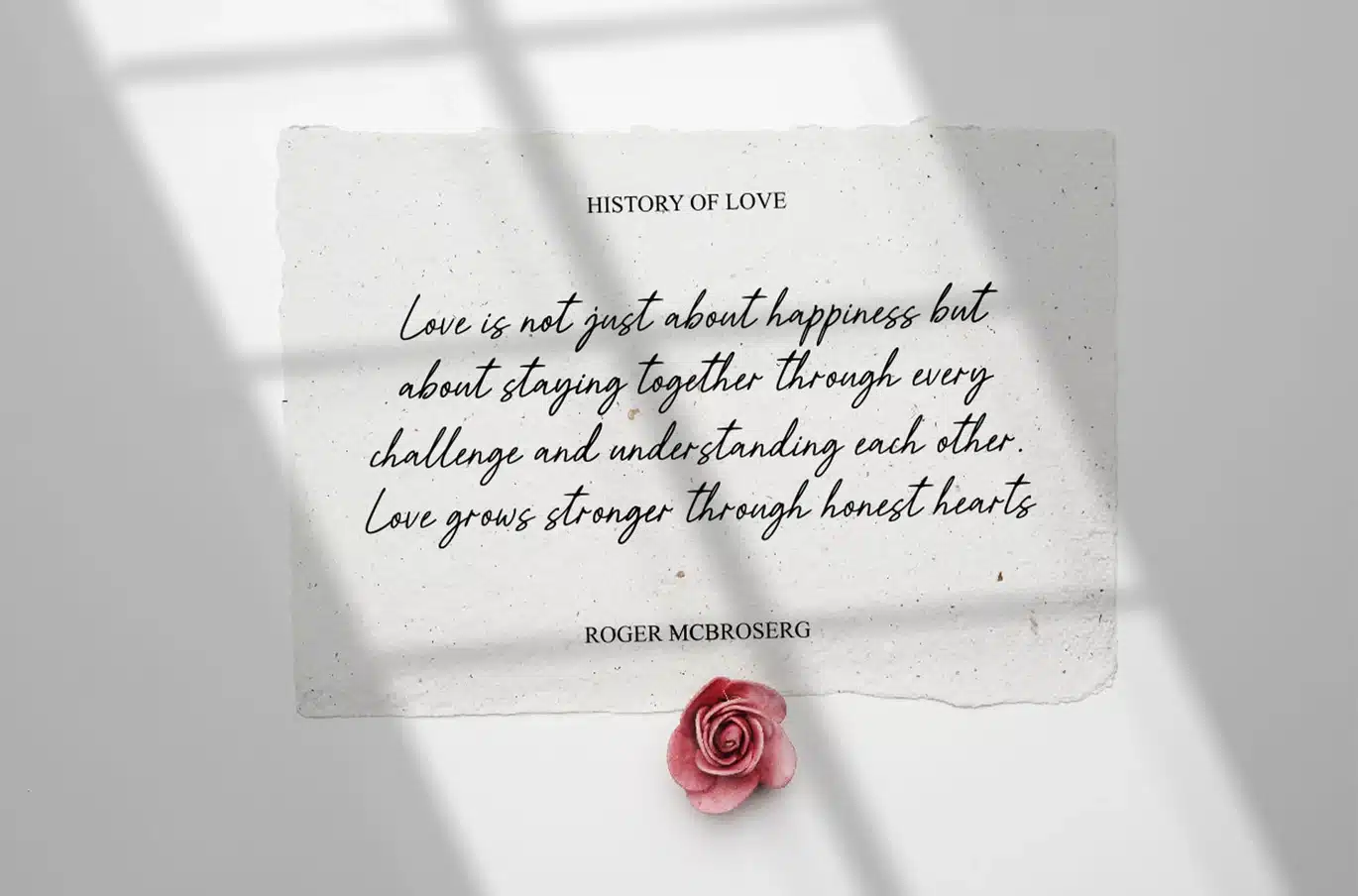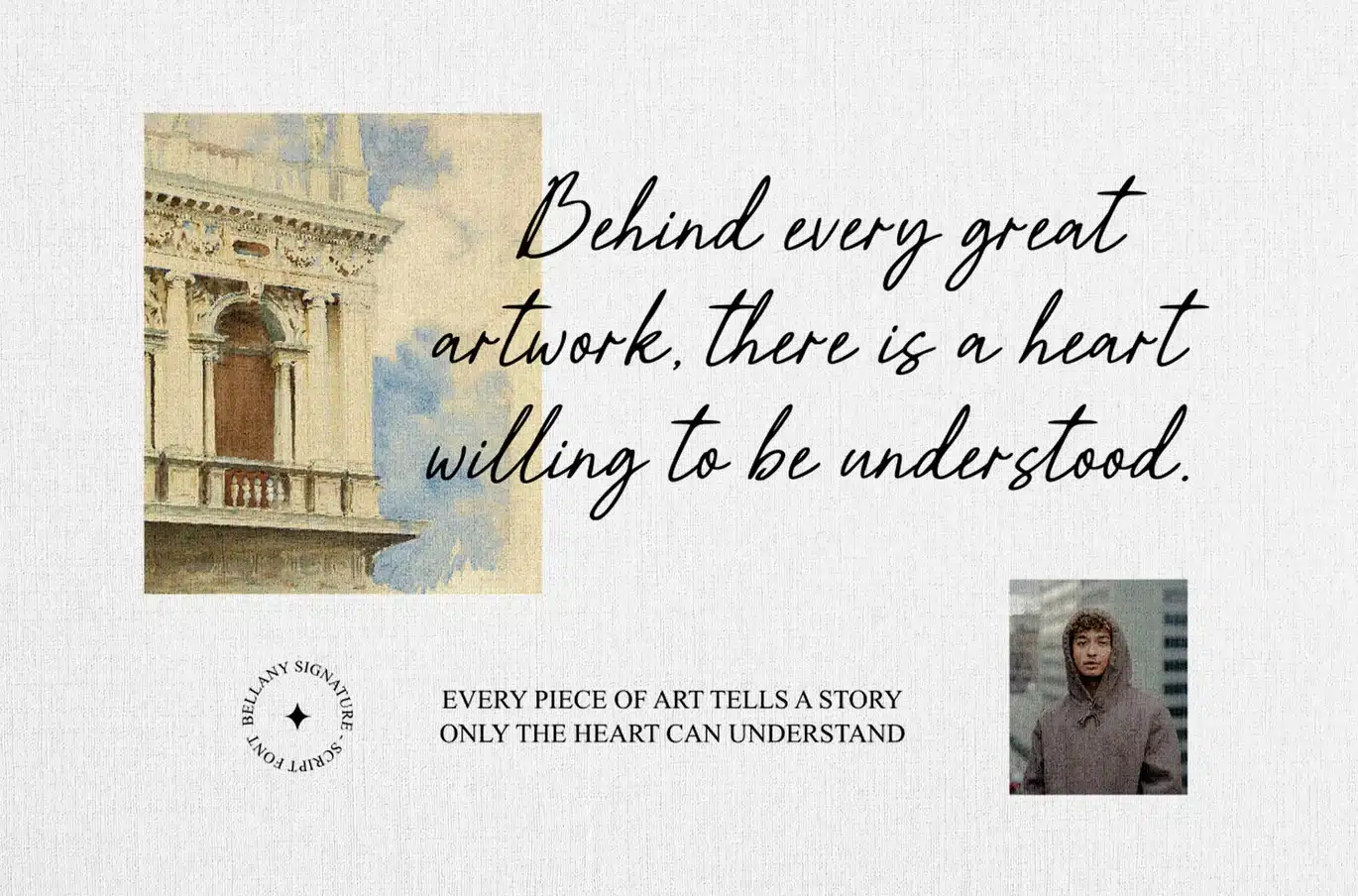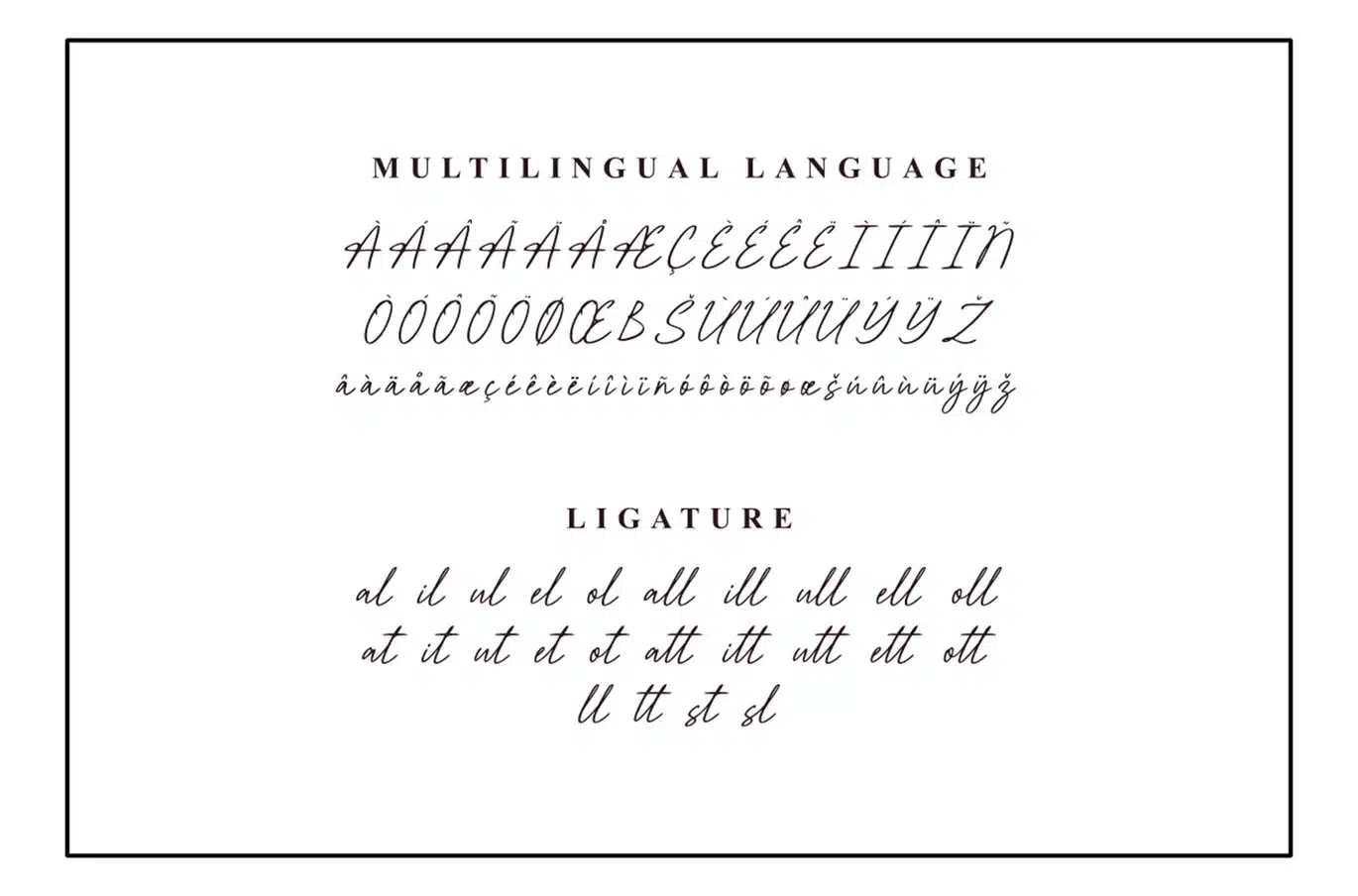
Bellany Signature Font
Bellany Signature is a sophisticated and fluid script font designed to bring a refined aesthetic to your creative projects. Its graceful, handwritten style is characterized by smooth connections and elegant letterforms, making it an ideal choice for professional branding and high-end design work.
Perfect for the current wedding season, Bellany Signature excels in creating stunning invitations, stationery, and event branding. Its versatility also extends to fashion logos, boutique branding, editorial headlines, and signature watermarks. With a comprehensive set of ligatures, this font provides a natural and authentic calligraphic feel, ensuring your text flows seamlessly.
- 231 Glyphs
- 24 ligatures
- Includes Multilingual Support